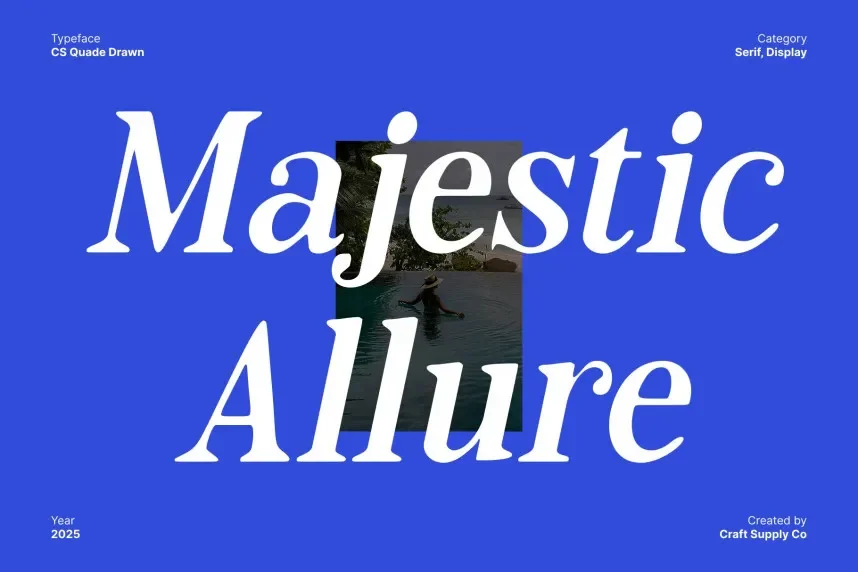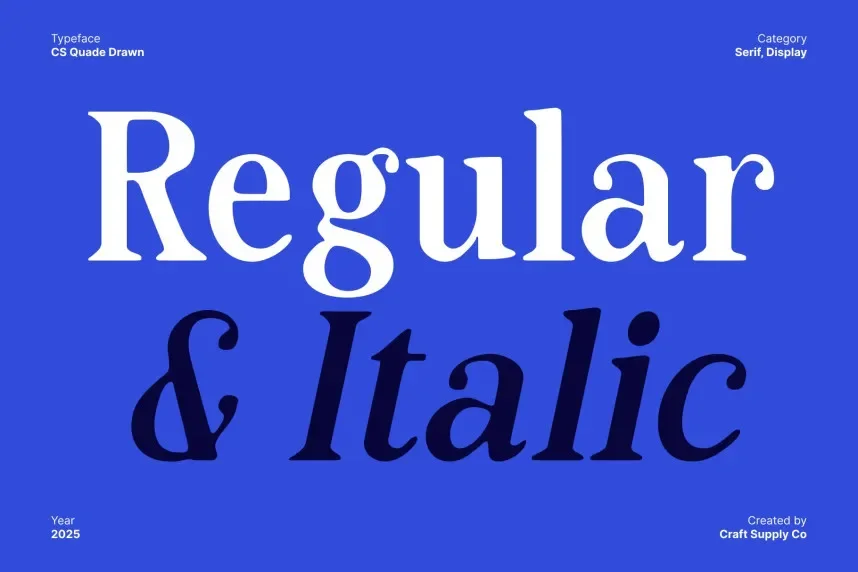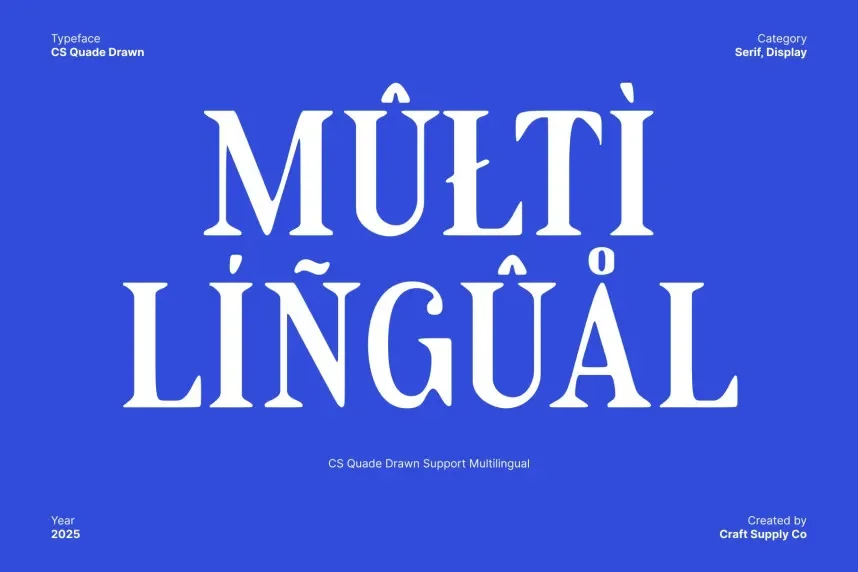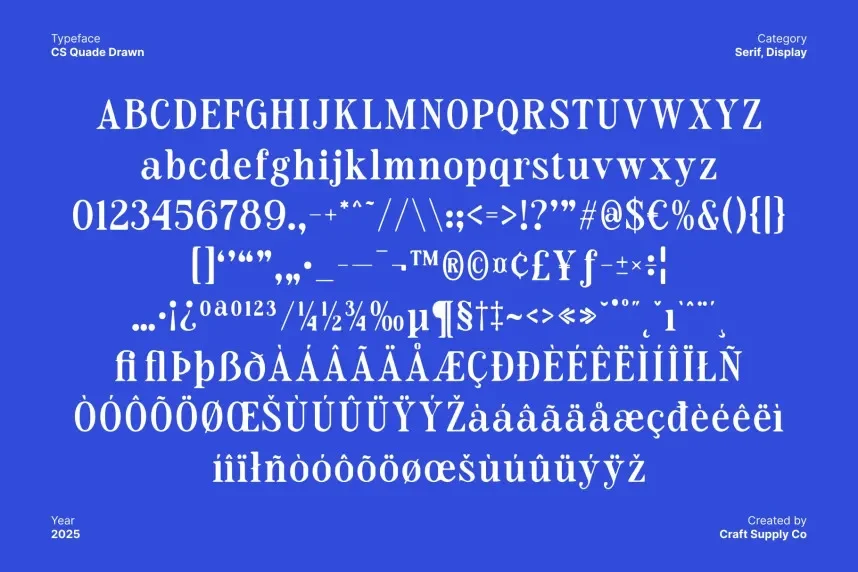
CS Quade Font is a hand-drawn display typeface with bold, expressive letterforms. The unique design features irregular strokes and organic shapes, making it perfect for creative projects that need a personalized, artistic touch. Its rough edges make it stand out in headlines and logos.